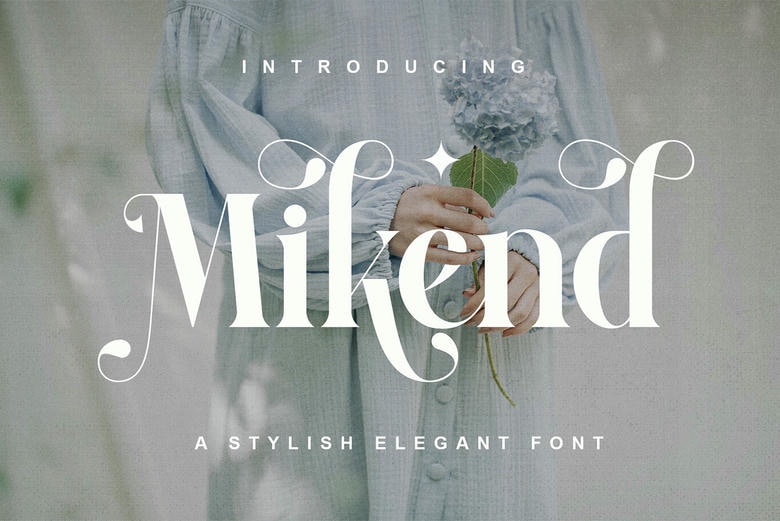
Mikend Font
Mikend is a serif modern font that has a classic simplicity and the and beauty of flowers at their freshest. Being a feminine type that is also sophisticated, Mikend is composed of imperfect lines that are confident and polished.
It is ideal as an upscale design used in florals, fashion or high-end branding with the delicate flair of classic serif designs, Mikend has a contemporized twist. Each letter has a deliberate existence, and the elegant softness gives any project with which it interacts to a higher level.
Mikend Serif Font